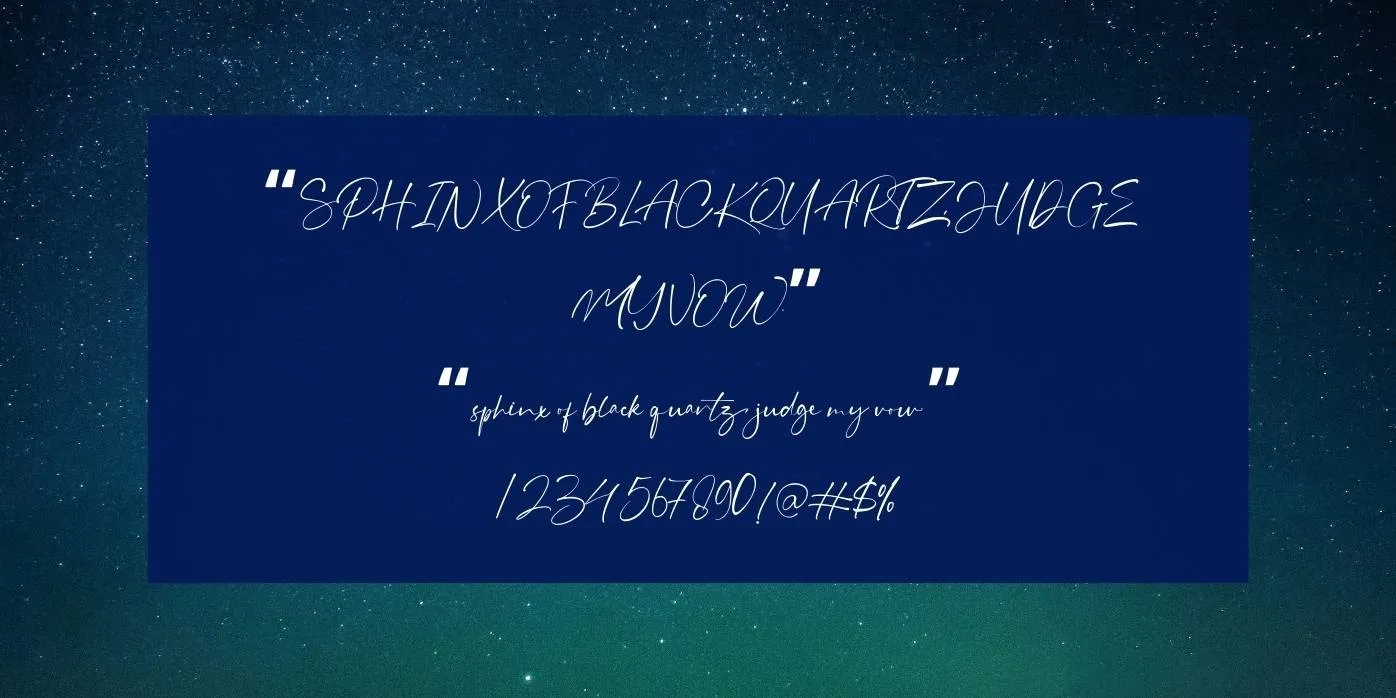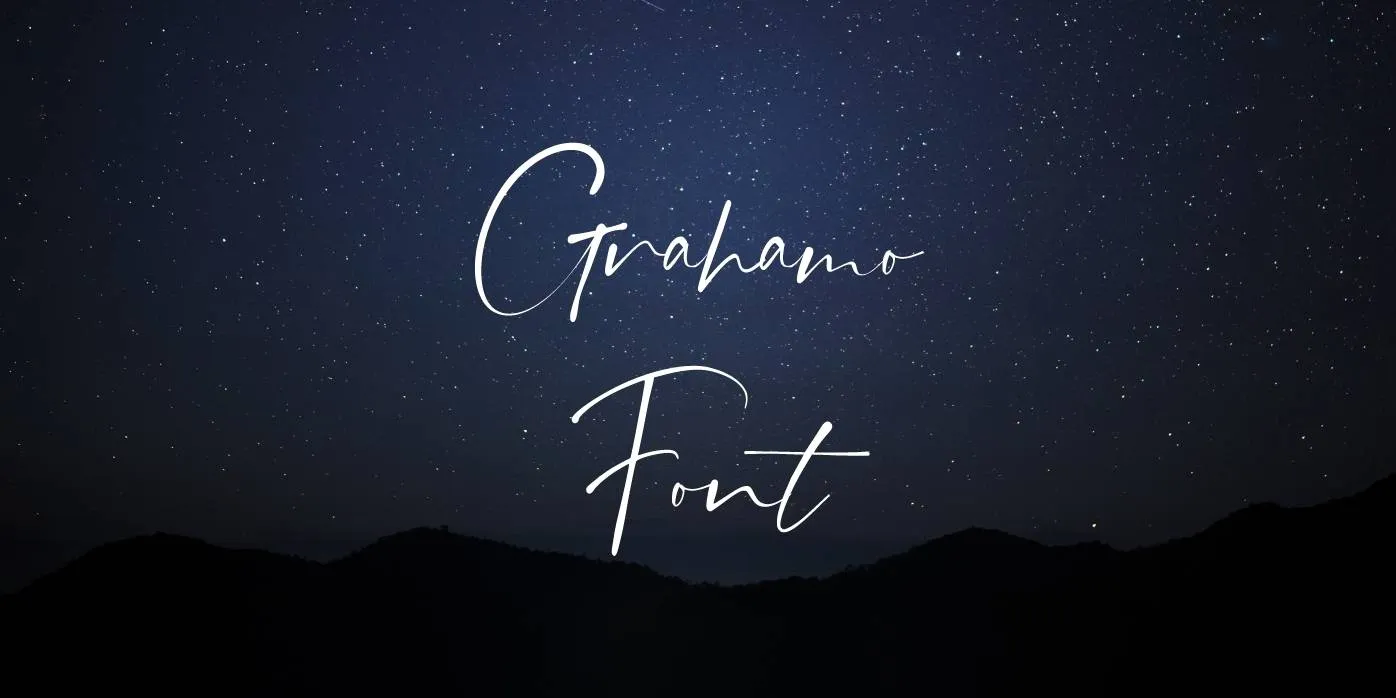
≠Grahamo Font
We discuss the details of Grahmo Font. Grahamo Font was designed by Candra Hamdani and Launched by Vultype Co. It has 244 characters, 208 glyphs, and 1000 units per Em. Permanent installation embedding rights are allowed in this font.
The weight of the font is Semi-Light and the width of the font is Medium (normal). Mac style supported by it is Bold and the pattern nature is Italic. Simple text can be changed into a stylish look by using an online generator tool and copy-paste. It is a luxury modern font.
This stunning typeface supports file formats TTF (True Type Font) and OTF (Open Type Font) This typeface paired with another font like tanya hati font to give a more attractive and amazing handwritten look. It can be used on many devices such as Linux, Windows, and Android.